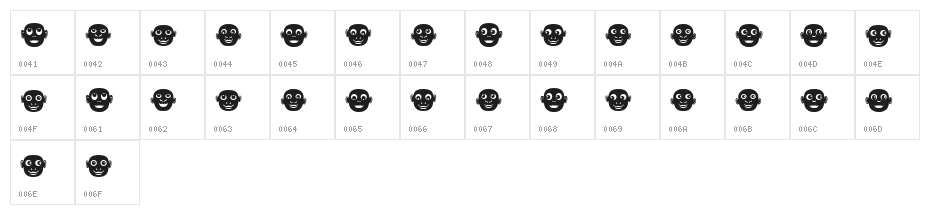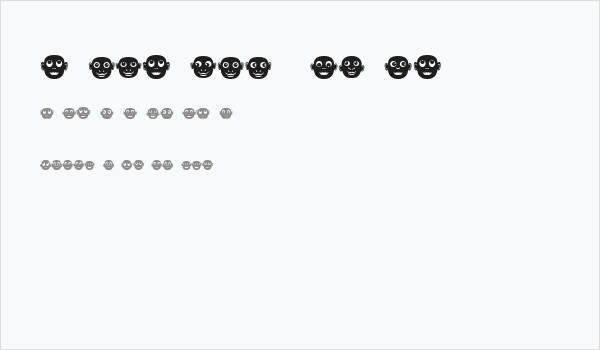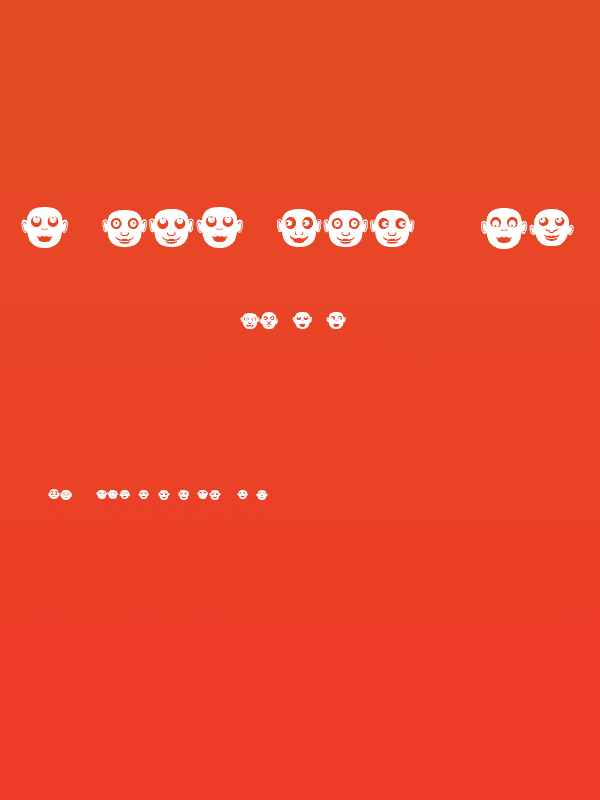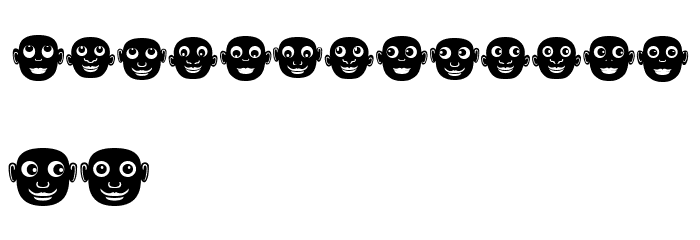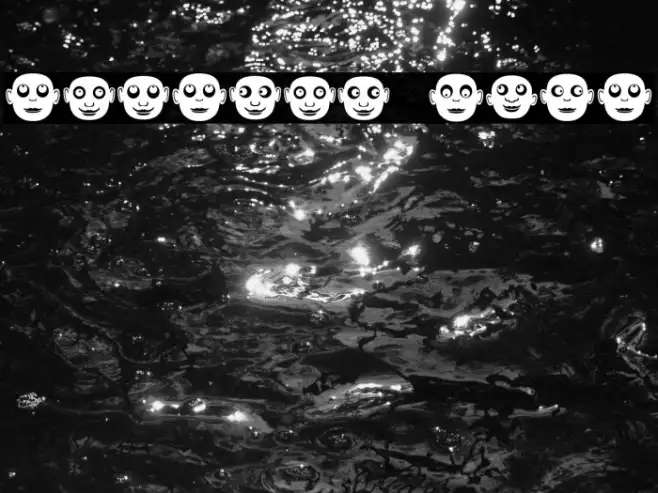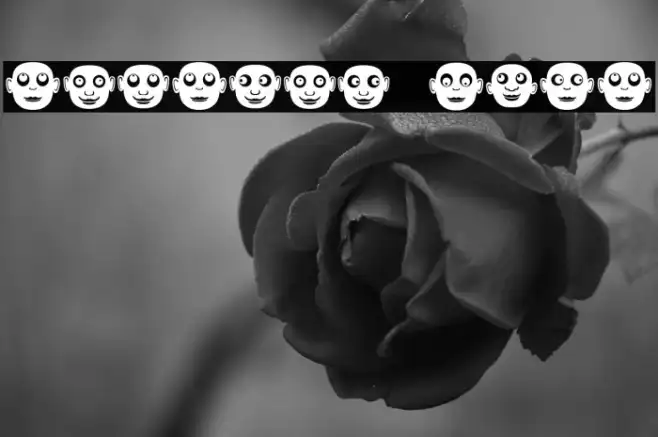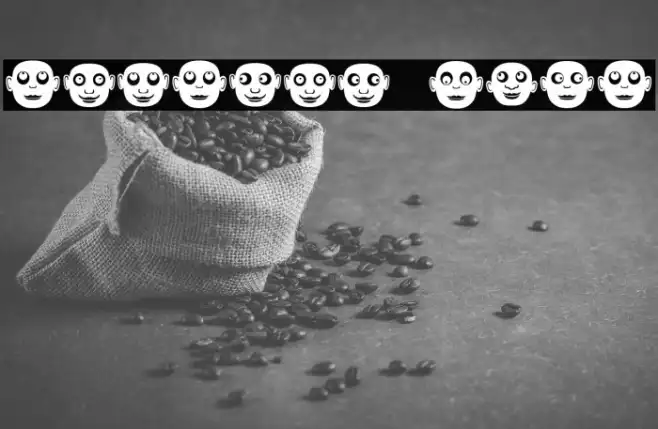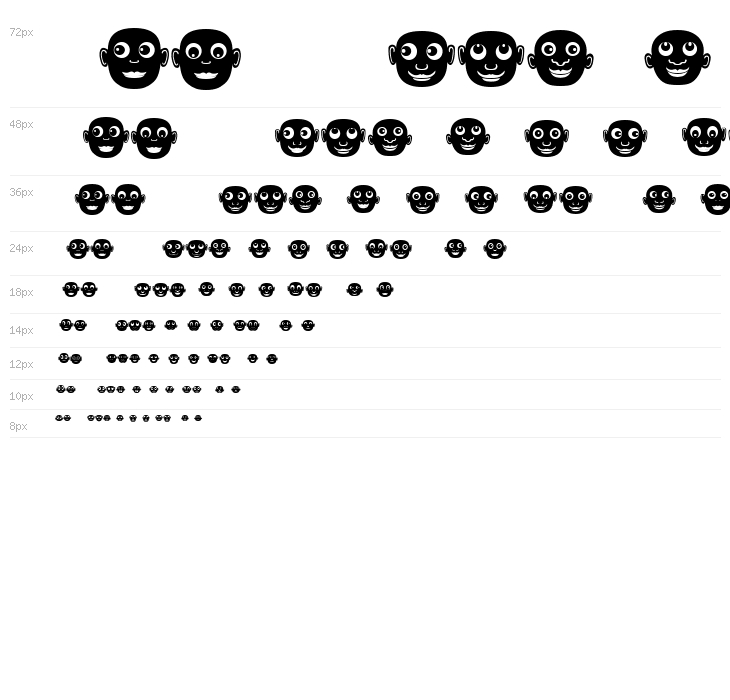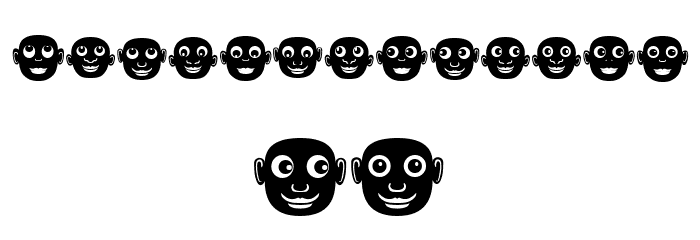
Avocation Regular Font
Avocation Regular Description
A playful, decorative typeface featuring cartoonish, smiling face glyphs for each character, with bold lines and high contrast, designed for visual impact rather than readability.
| Overall Style | Decorative, Playful, Cartoonish |
| Use Case | Logos, Posters, Headlines, Children’s materials |
| Proposed Projects | Children’s books, party invitations, playful branding, posters, novelty products, educational materials. |